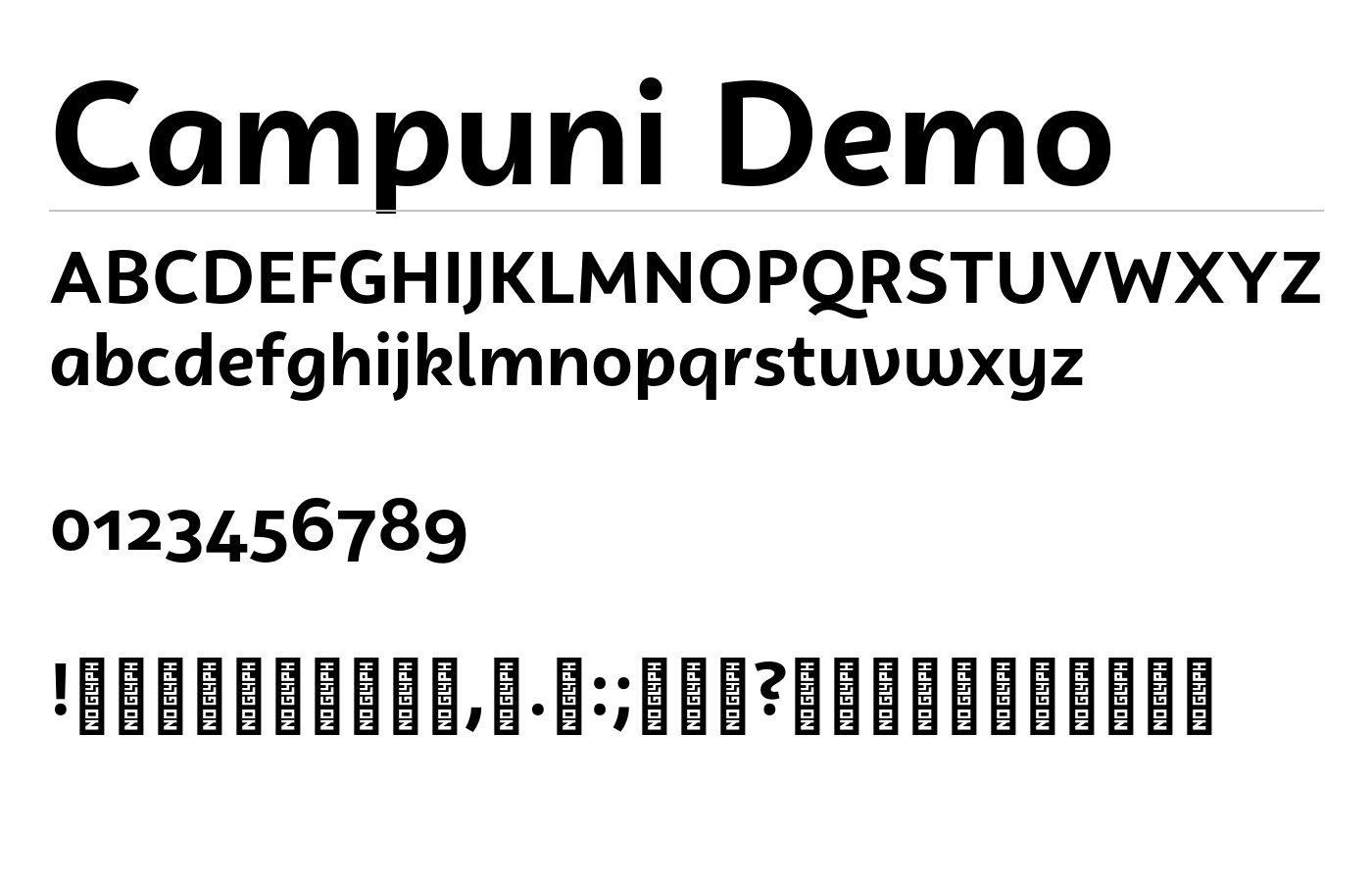
Campuni Demo is a friendly and modern sans serif font with a clean, medium weight and slightly condensed width. It features smooth, rounded letterforms with a moderate x-height, making it highly legible and approachable for various uses. This versatile typeface works well in branding, headlines, and digital interfaces where clarity and a contemporary feel are key.
Campuni Demo Font